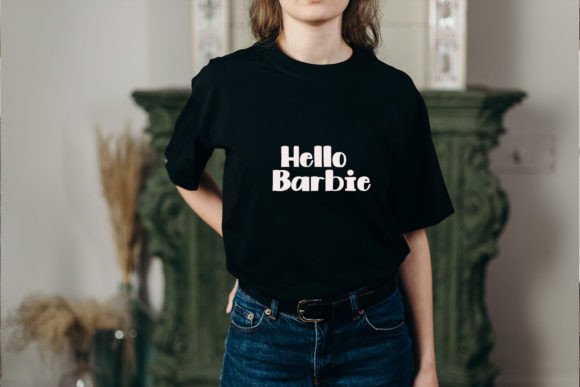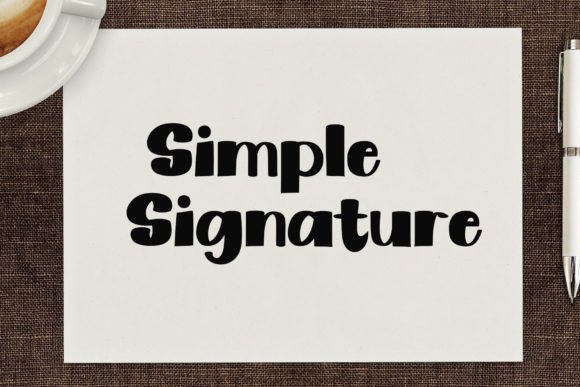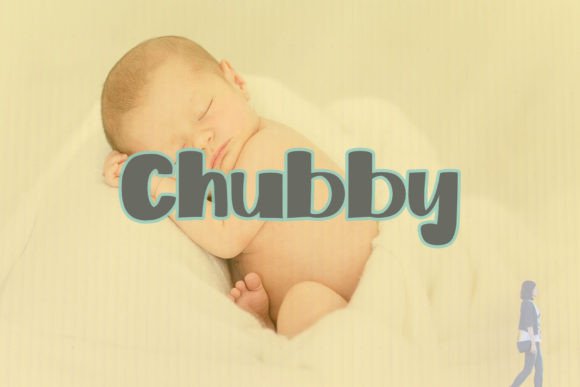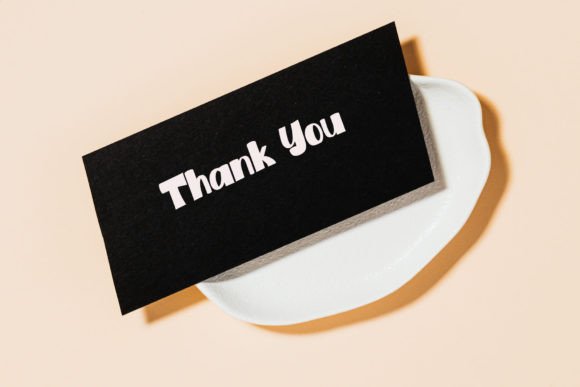
Hello Baby Font: Elevate Your Designs with Elegance and Class
In the world of typography, fonts play a crucial role in conveying the tone and personality of a design. For designers and crafters seeking to add a touch of sophistication and elegance to their projects, the Hello Baby Font is an excellent choice. This trendy handwritten font boasts a contemporary atmosphere and impeccable form, drawing inspiration from timeless classic calligraphy.
The Characteristics of Hello Baby Font
Hello Baby Font is a beautifully crafted handwritten font that exudes elegance and refinement. Its unique characteristics make it an ideal choice for designers looking to add a personal touch to their work. Some of the key features of this font include:
• Trendy and Contemporary: Hello Baby Font has a modern and fresh feel to it, making it perfect for designs that require a contemporary touch.
• Inspired by Classic Calligraphy: The font’s design is rooted in traditional calligraphy, giving it a timeless and classic appeal.
• Impeccable Form: The font’s impeccable form ensures that it is clear and legible, making it suitable for a wide range of design applications.
• Elegant and Refined: Hello Baby Font adds a touch of sophistication and elegance to any design, making it ideal for projects that require a high-end feel.
Uses of Hello Baby Font
Hello Baby Font is a versatile font that can be used in a variety of design projects. Its elegant and refined characteristics make it suitable for:
• Logos and Branding: Create a lasting impression with a custom logo or brand identity that showcases your business’s personality and style.
• Invitations and Stationery: Add a touch of elegance to your invitations, greeting cards, and other stationery designs.
• Packaging and Product Design: Use Hello Baby Font to create eye-catching packaging and product designs that stand out on store shelves.
• Web Design and Development: Enhance your website’s typography with Hello Baby Font, creating a cohesive and visually appealing online presence.
• Social Media Graphics: Create engaging social media graphics, such as quotes, posters, and flyers, that showcase your brand’s personality.
Benefits of Using Hello Baby Font
By incorporating Hello Baby Font into your design projects, you can enjoy several benefits, including:
• Unique and Distinctive: Hello Baby Font’s unique design ensures that your projects stand out from the crowd.
• Easy to Read: The font’s impeccable form and clear design make it easy to read, even at small sizes.
• Versatile: Hello Baby Font can be used in a wide range of design applications, from logos and branding to packaging and web design.
• Time-Saving: With Hello Baby Font, you can save time and effort in creating custom typography for your designs.
Tips for Using Hello Baby Font Effectively
To get the most out of Hello Baby Font, consider the following tips:
• Pair it with Other Fonts: Experiment with pairing Hello Baby Font with other fonts to create a unique and visually appealing typography combination.
• Use it Consistently: Use Hello Baby Font consistently across your designs to create a cohesive brand identity.
• Adjust Font Sizes: Experiment with different font sizes to create visual hierarchy and emphasis in your designs.
• Experiment with Colors: Try out different colors and textures to add depth and interest to your designs.
Hello Baby Font is a beautiful and elegant handwritten font that can elevate your design projects with its sophisticated and refined characteristics. With its versatility, unique design, and ease of use, this font is an excellent choice for designers and crafters seeking to add a touch of elegance and class to their work. Whether you’re creating logos, branding, packaging, or web designs, Hello Baby Font is sure to impress.